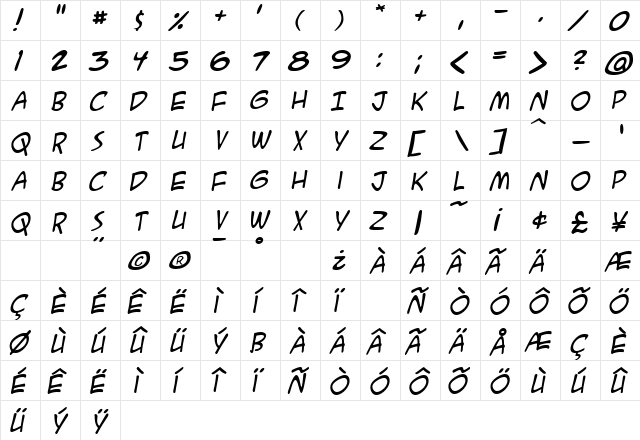
A.C.M.E. Secret Agent Italic
Design Context for A.C.M.E. Secret Agent Typeface
A.C.M.E. Secret Agent is a composed and adaptable typeface that performs quietly and consistently across a wide range of design contexts. The slanted form adds forward momentum and visual energy.
Pro Tip: Try A.C.M.E. Secret Agent for annotation and caption copy alongside an upright companion — the contrast in angle creates a dynamic but ordered typographic system.